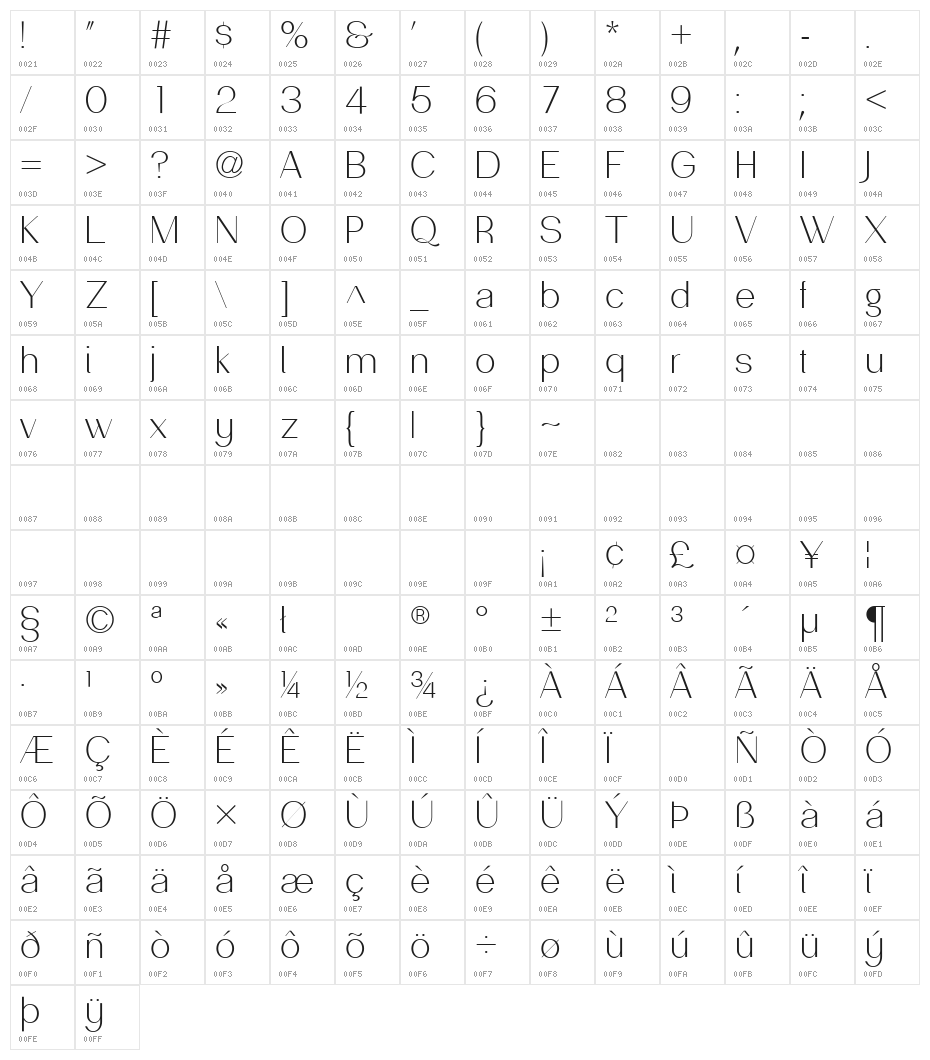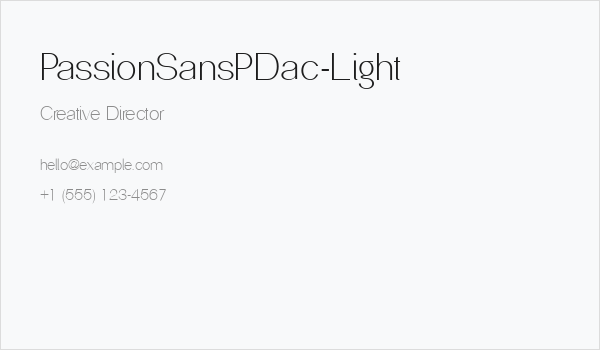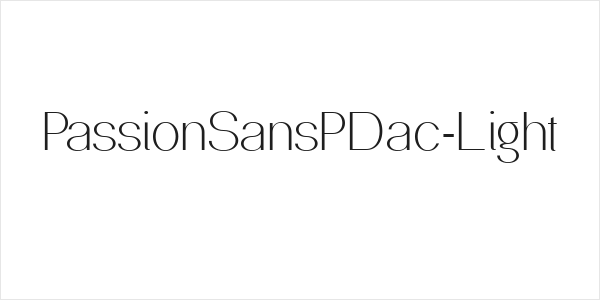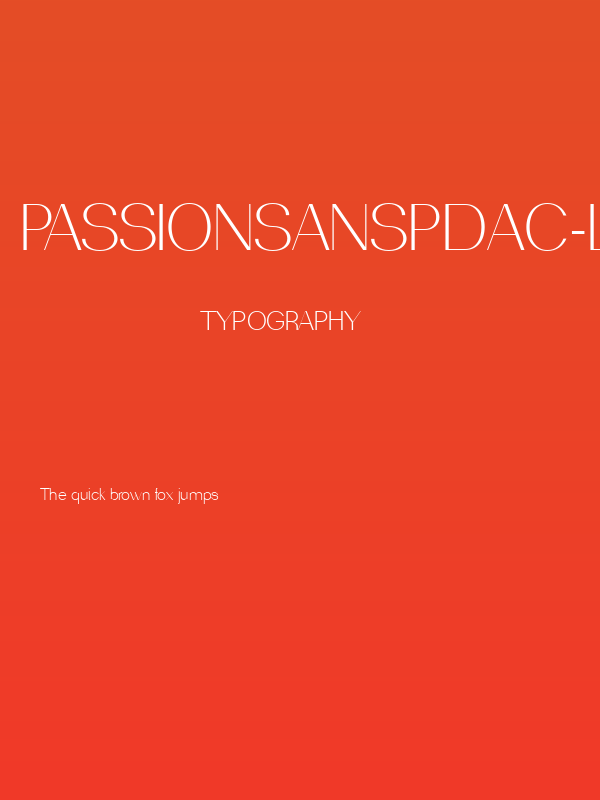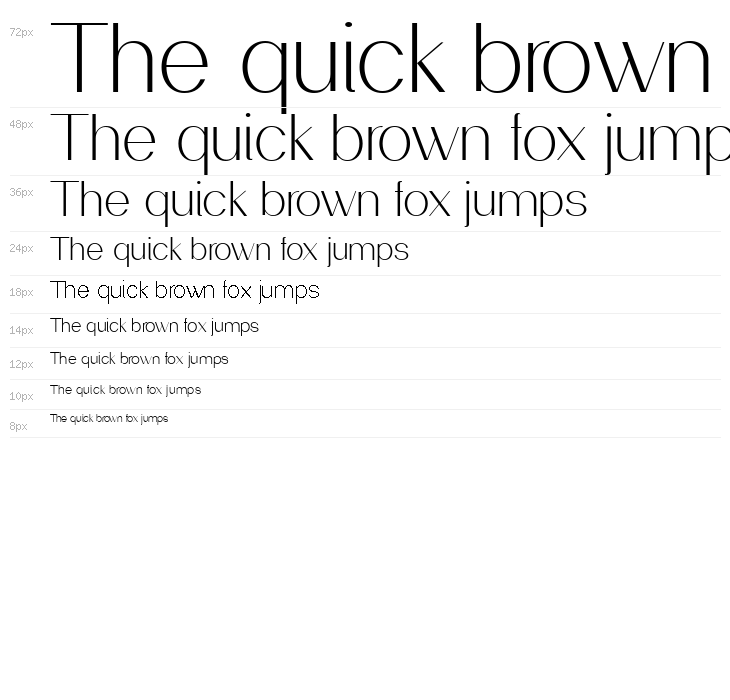
PassionSansPDac-Light Font
PassionSansPDac-Light Description
This font features a sleek and modern sans-serif design with clean lines and a light weight. The characters are elegantly proportioned, offering a harmonious balance between form and function. The uppercase letters are tall and commanding, while the lowercase letters maintain a consistent flow, enhancing readability. The numerals are distinct and clear, making them suitable for various applications. Special characters are well-integrated, adding versatility to the font's usage. The overall aesthetic is minimalist yet sophisticated, making it ideal for contemporary design projects.